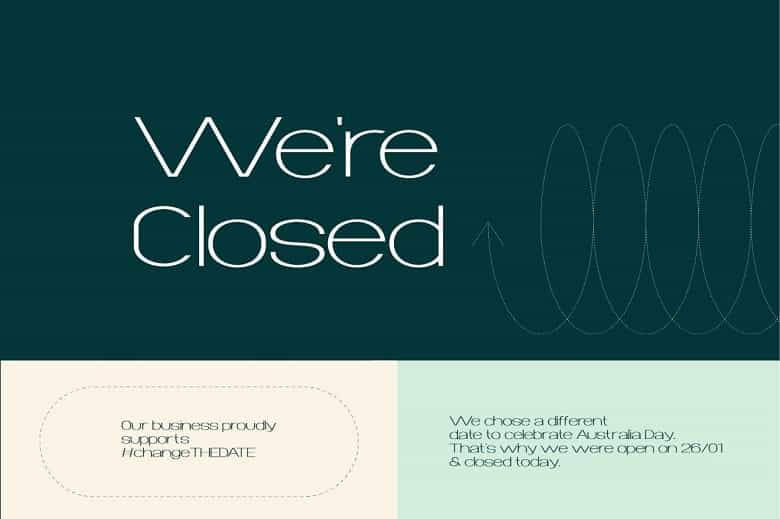
Vessalona is a sans serif font that reflects the principles of elegance by simplicity. All the characters in the typeface Vessalona has streamlined design and equal harmonic proportions that can be easily used in any design. It has got those soft geometric touches that add that much needed contemporary feel without it losing its welcoming look.